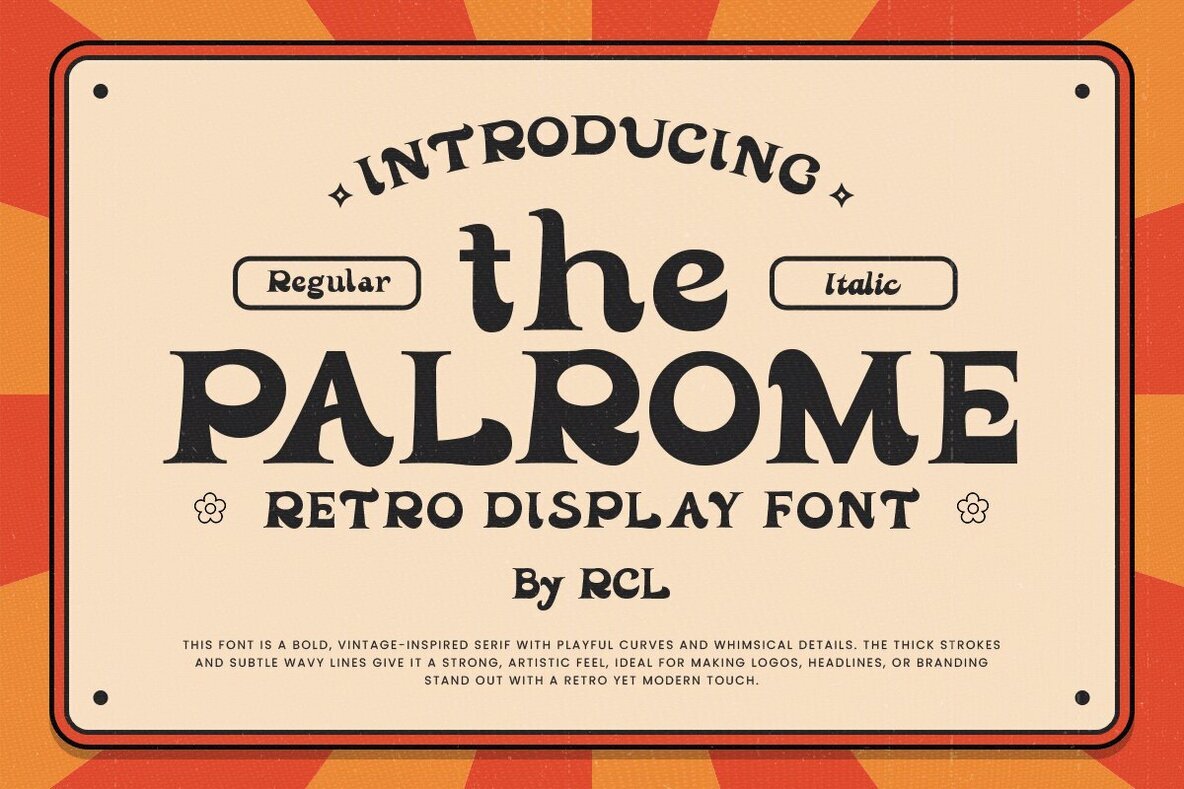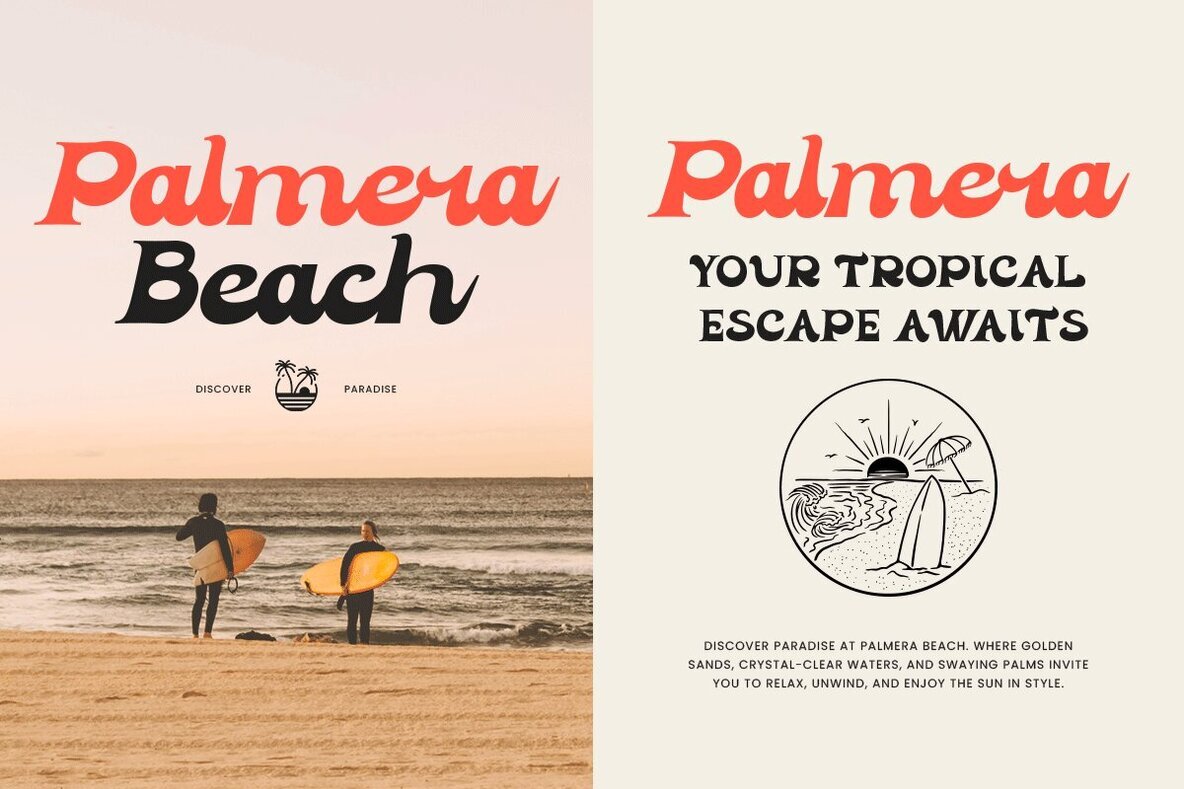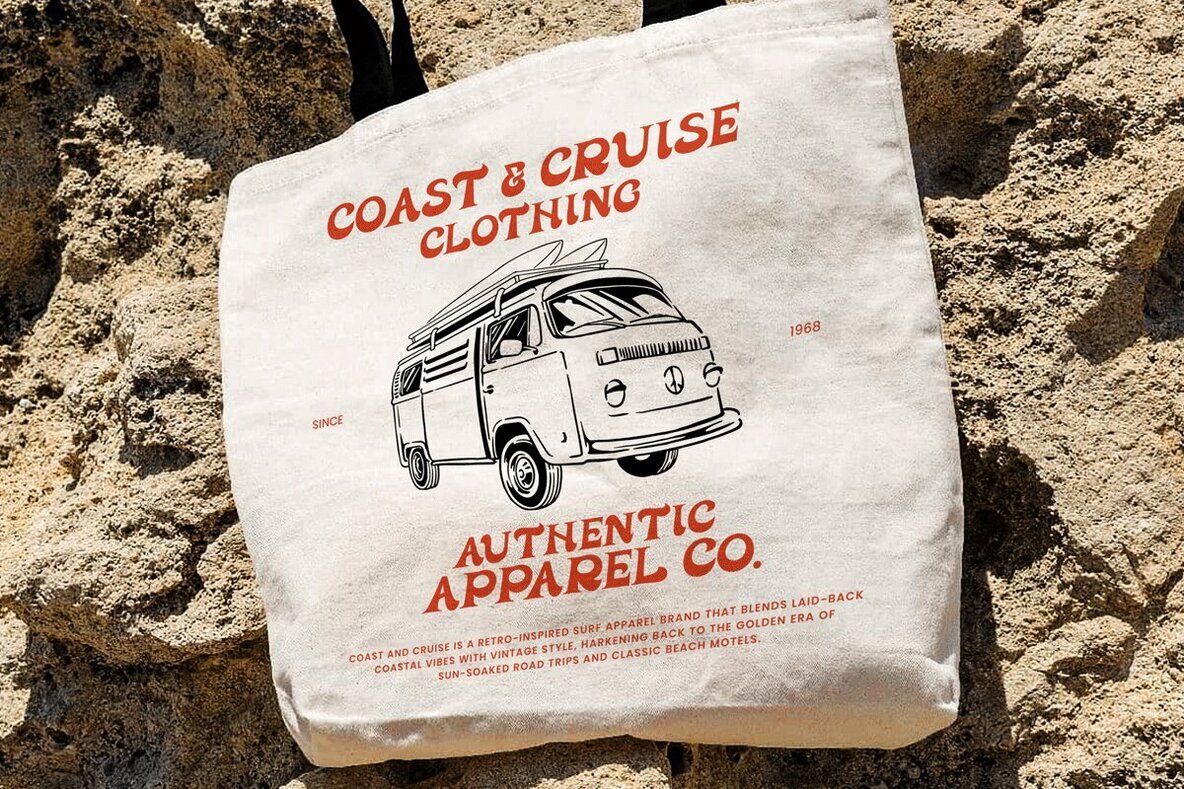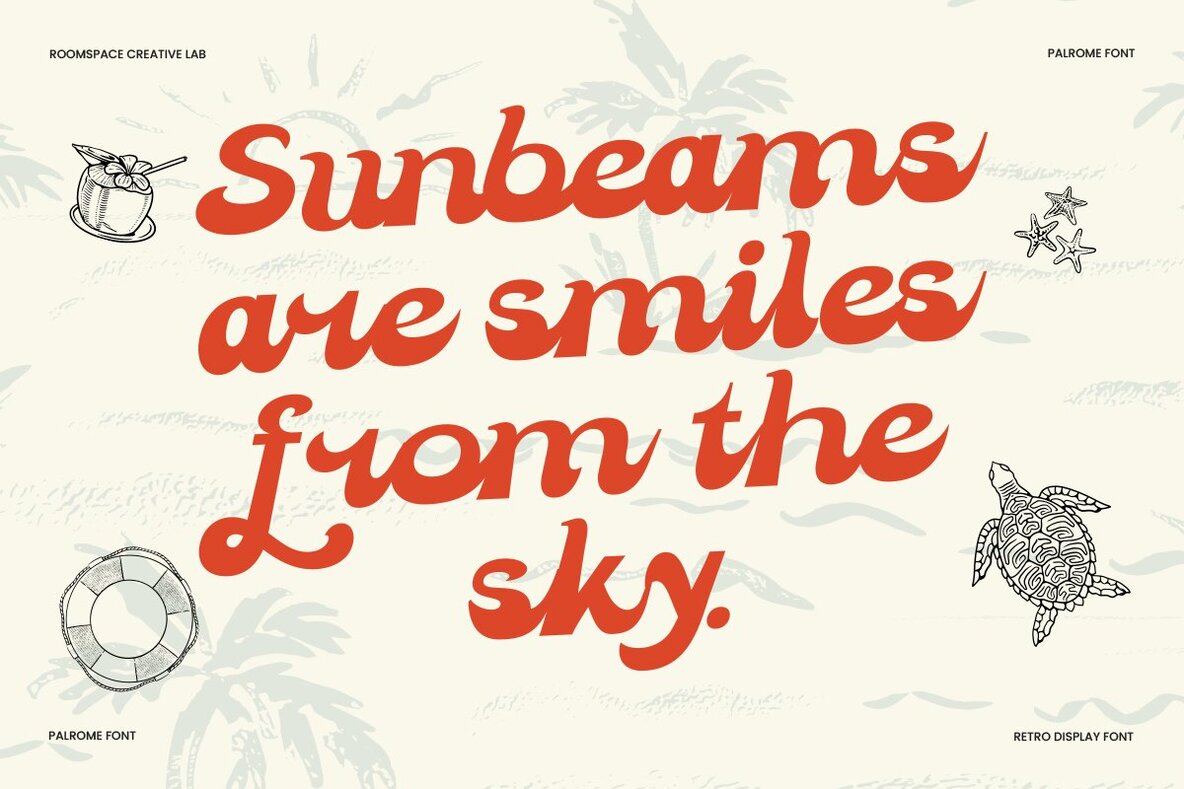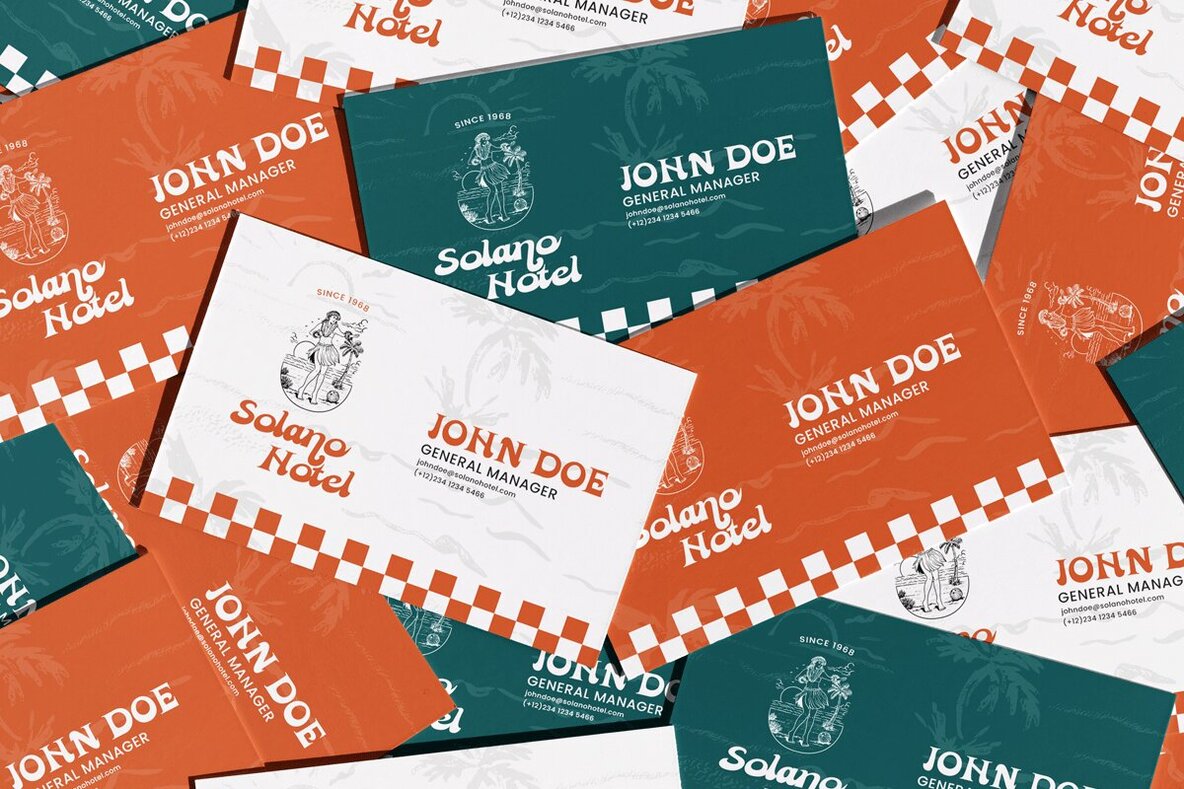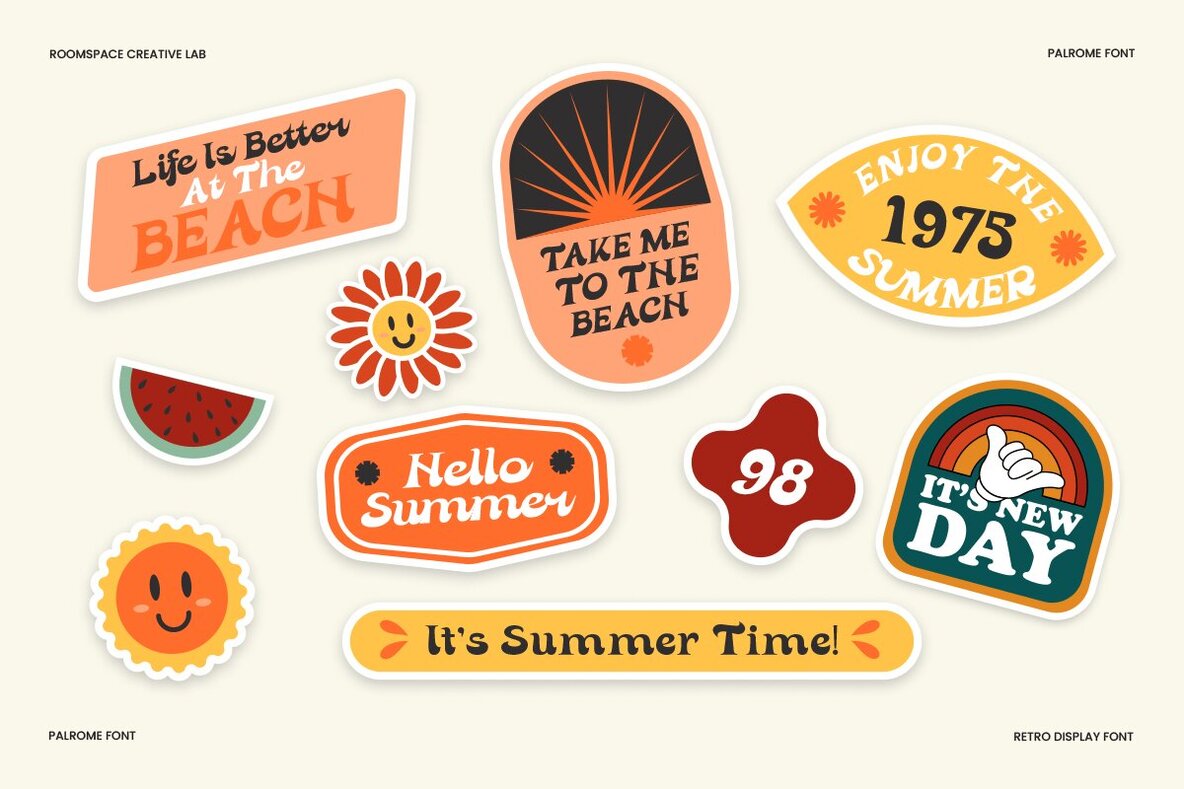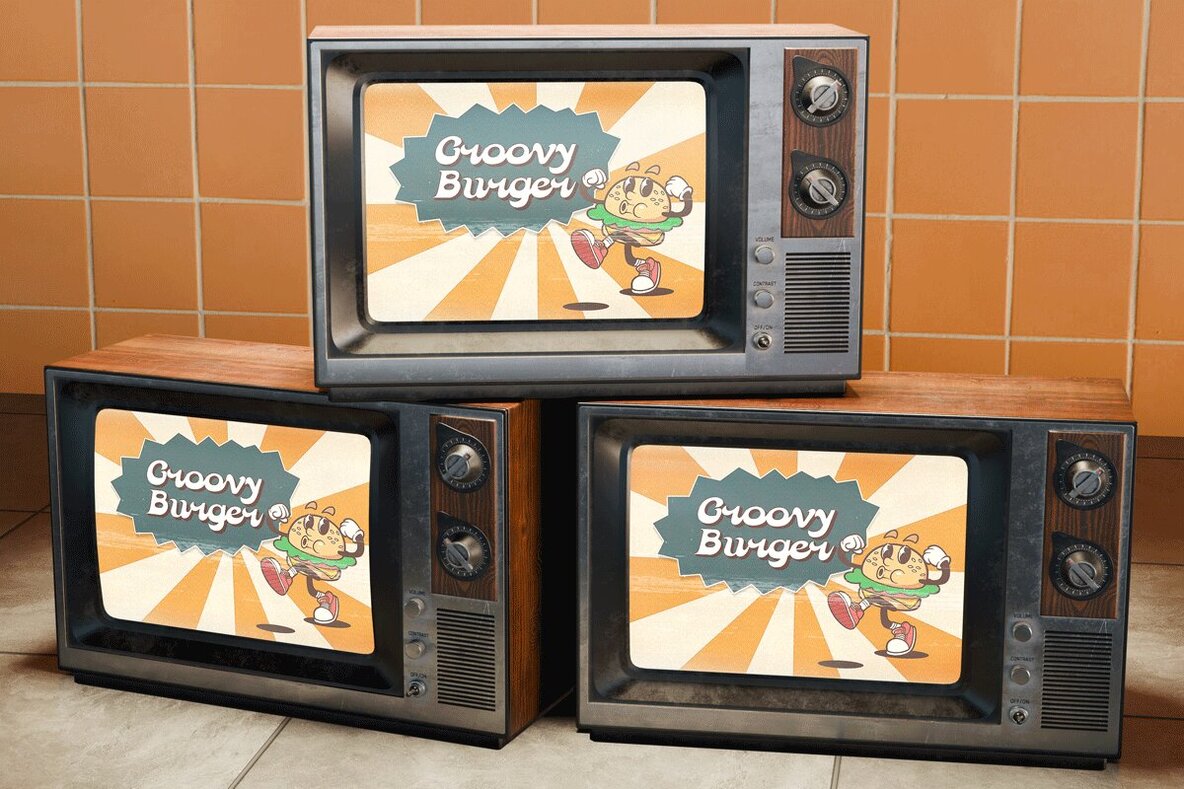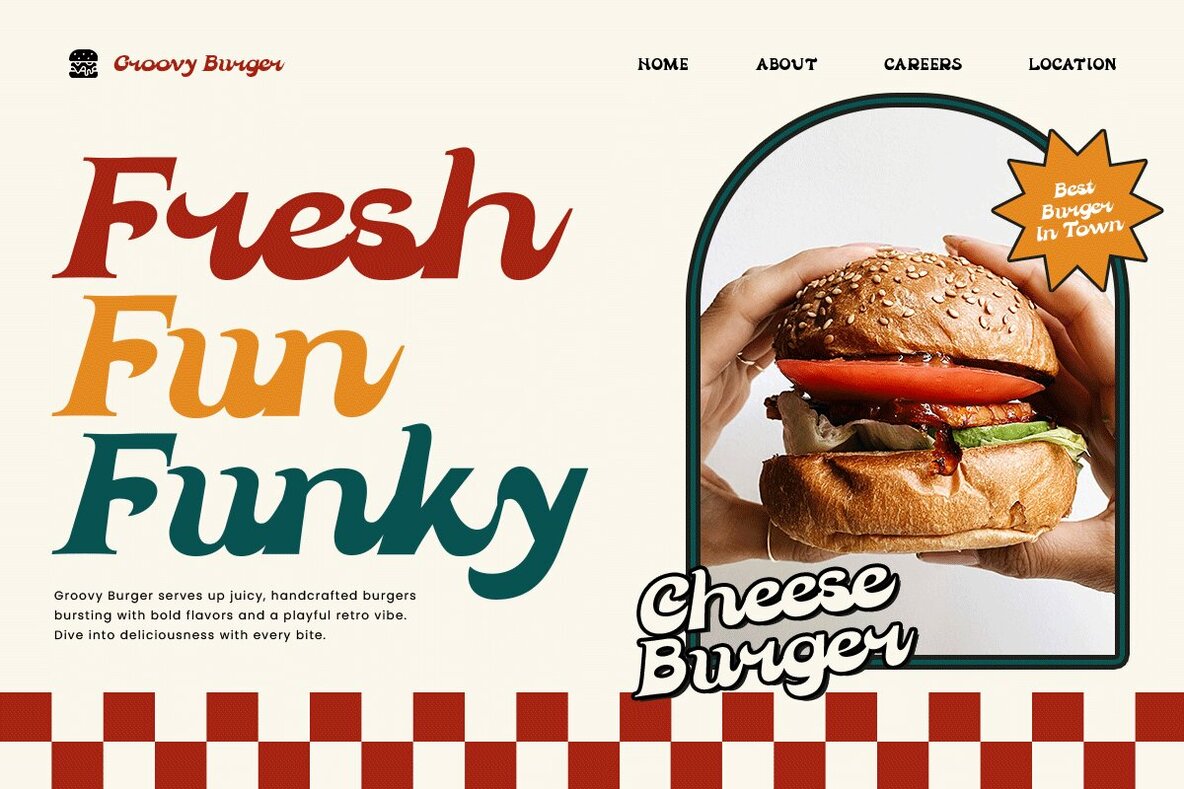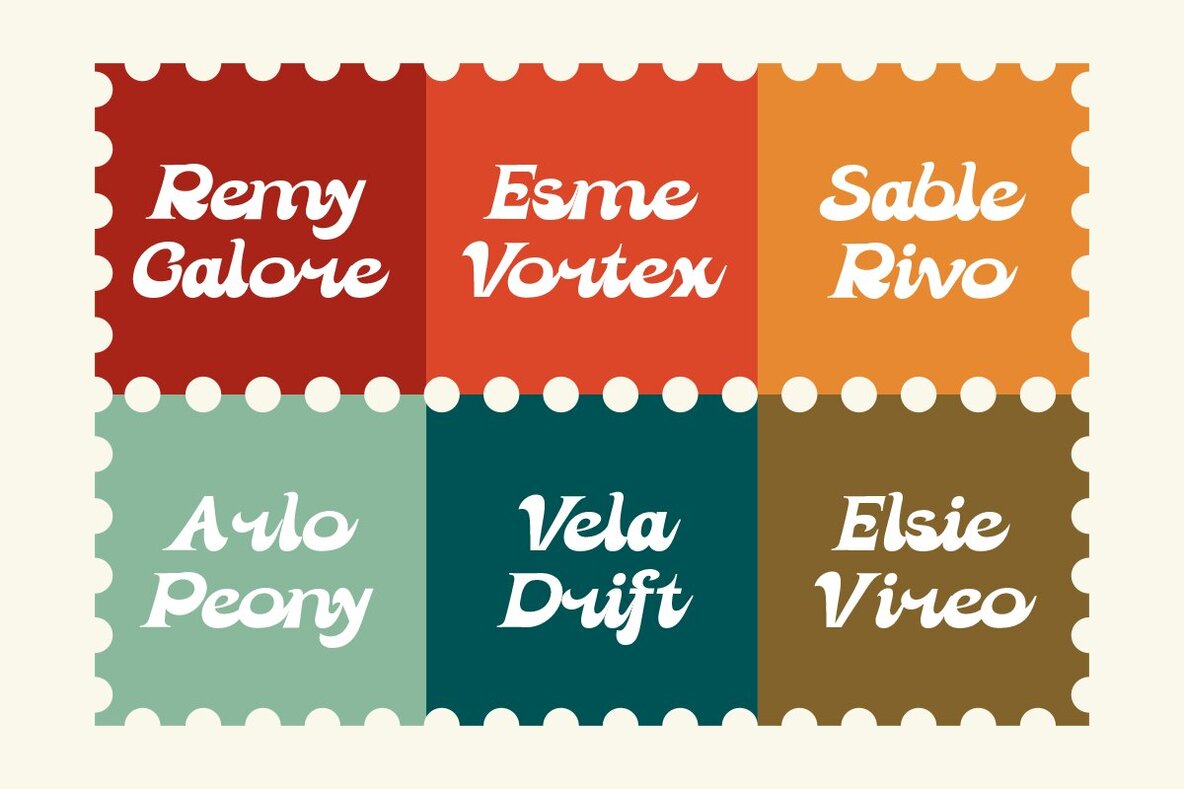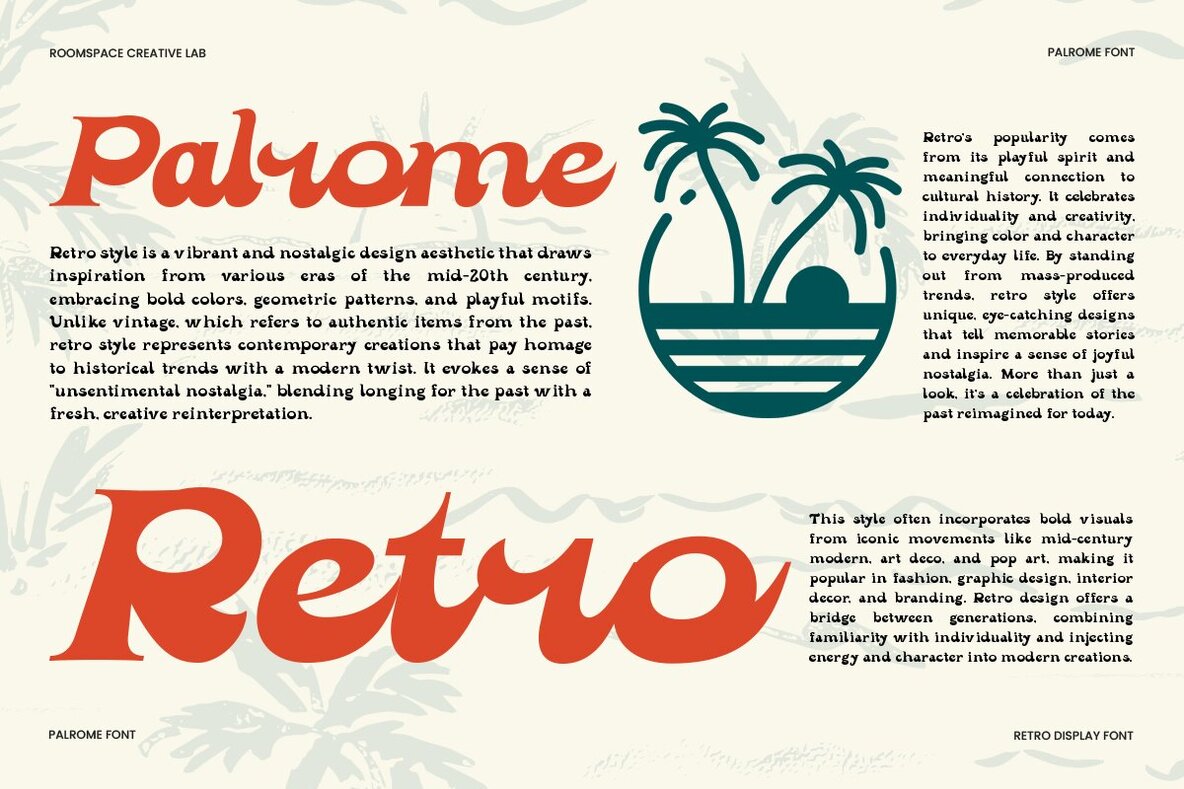
Palrome Font
Palrome captures the groovy essence of the 70s and 80s, manifesting a charming yet modern aesthetic. This bold retro display font blends playful curves with whimsical details, giving your designs a vintage-inspired yet contemporary personality. Available in two versatile styles—Regular and Italic—Palrome offers designers the transformative power of creative expression. Its thick strokes, subtle contours, and finely tuned kerning ensure impeccable readability and flow, whether in bold headlines or delicate accents. Its design seamlessly adapts to various uses, maintaining a graceful rhythm throughout. Ideal for logos, packaging, posters, and retro-themed social media, Palrome infuses projects with a nostalgic flair fused with modernity. It’s a perfect choice to give brands a timeless aesthetic with a bold, vintage edge.Palrome: Bold Retro Display Font